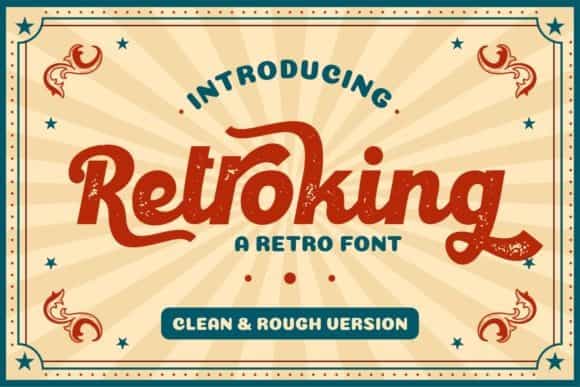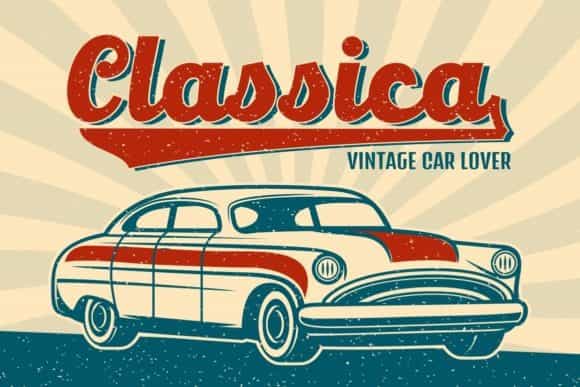
Retroking seems a little bit brave, but at the same time it is very elegant and has thick characters that will fit perfectly in logos, branding, packaging design and many other things. This is a perfect display font that you cannot afford to miss.